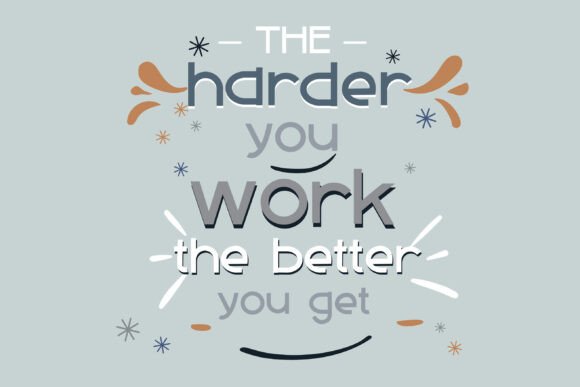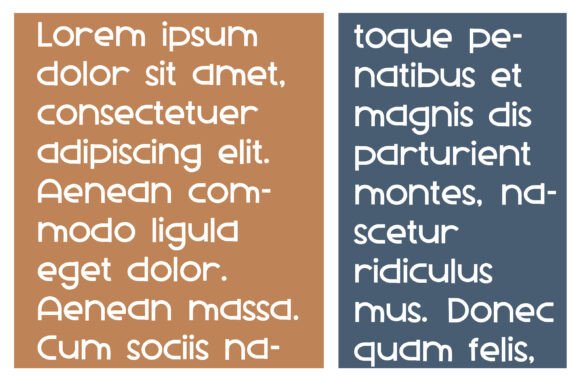
Bojangle Font
This hand-crafted sans serif is squatty and a bit wide.Light version included.A hand-crafted font is a font that is designed to look like it was written by hand. It is often used for invitations, greeting cards, and other items. Handwritten fonts can be either formal or informal, and they can be used for a variety of purposes.